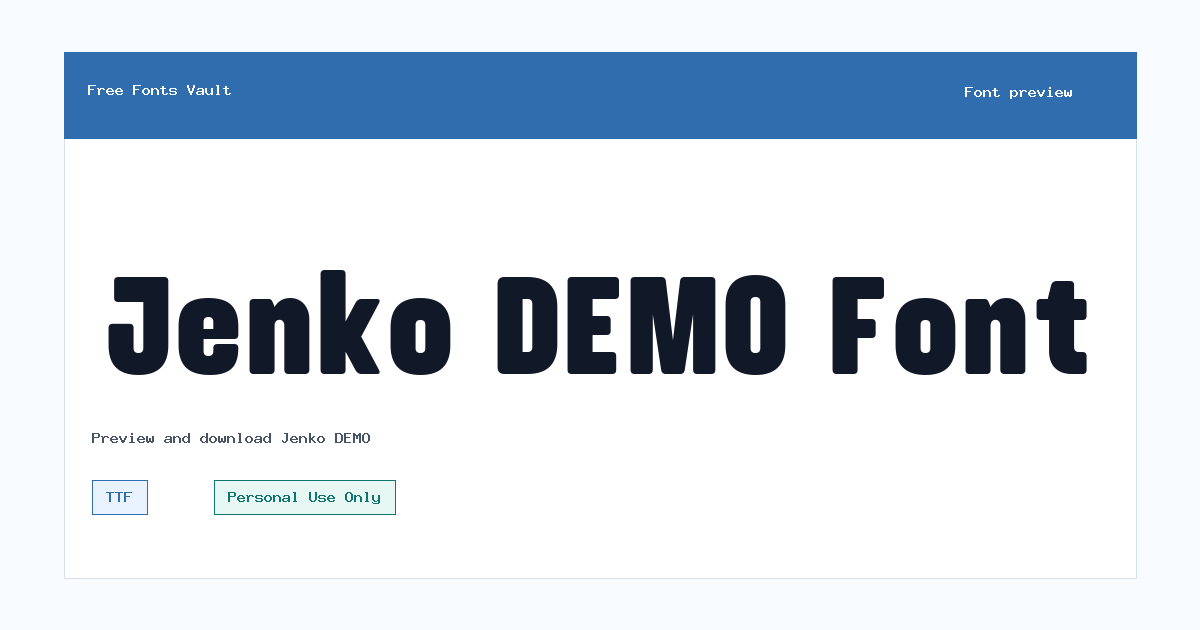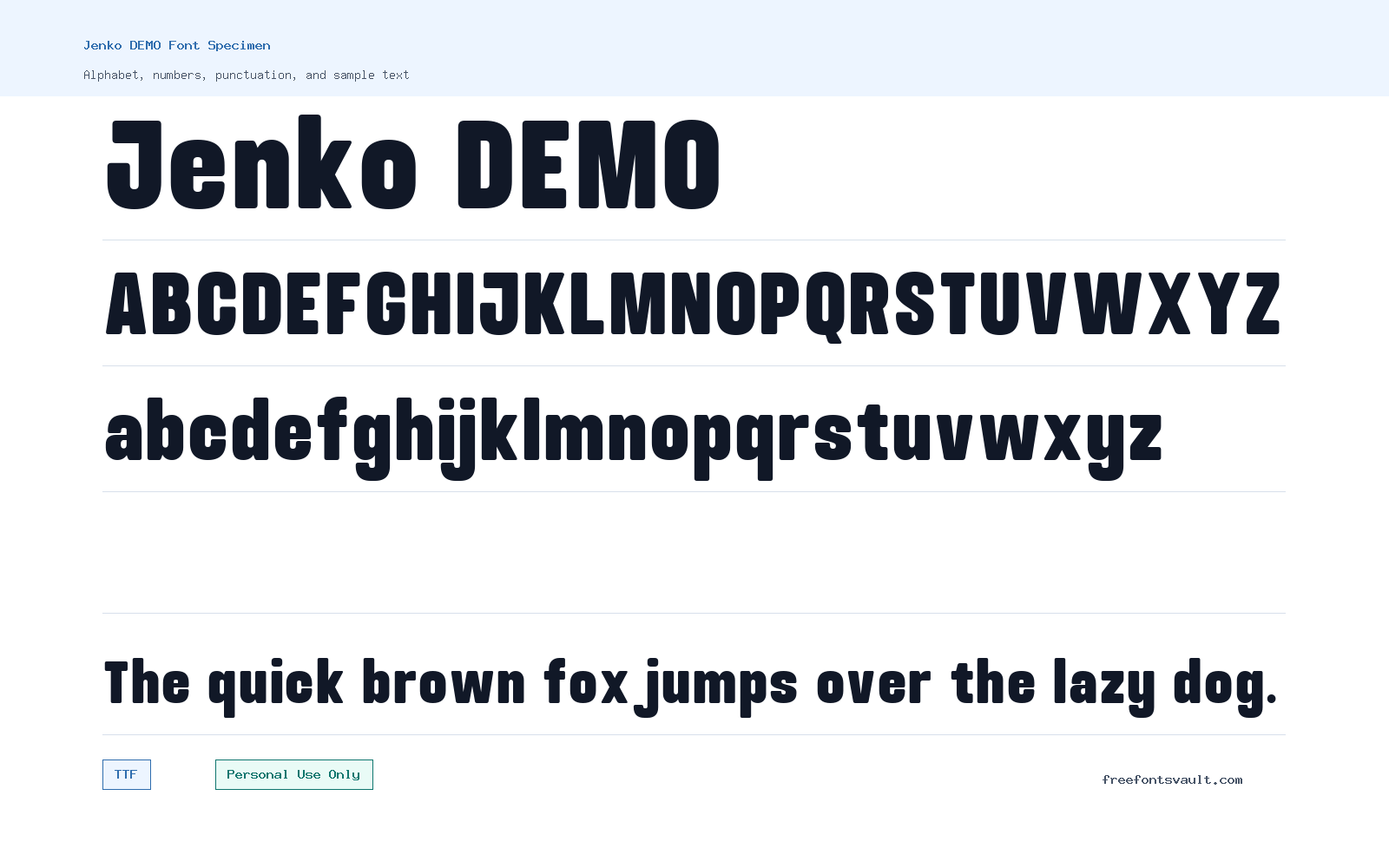
Jenko DEMO
Jenko DEMO font preview showing the family name
Jenko DEMO Font
Jenko DEMO font specimen showing alphabet, numbers, and sample text
Jenko DEMO font.
Jenko DEMO is a sans serif font with a clean regular style, made for visitors who want to test a modern display-friendly typeface before using it in personal design work.
About Jenko DEMO
Jenko DEMO is presented as a regular-weight TTF font from Say Studio. Its sans serif classification makes it useful for clear titles, short labels, display text, and simple brand mockups where you want a direct, uncluttered look. Because only the regular style is listed, it is best treated as a single-style font rather than a full text family. That makes it easier to preview quickly, but it also means you should test spacing, contrast, and hierarchy carefully before using it across a larger layout.
For design work, Jenko DEMO is most useful in short runs of text: logo drafts, poster headlines, social graphics, packaging concepts, web hero mockups, portfolio thumbnails, and typographic experiments. Try it first with a few words, then test it at both large and medium sizes. If the letter shapes feel too strong for body copy, keep it for headings and pair it with a quieter font for paragraphs. A neutral sans serif, a readable humanist sans, or a simple serif can help balance the design without competing with the main title.
If you are using Jenko DEMO for logo exploration, start with black text on a plain background before adding color, texture, or effects. This helps you judge the actual letter rhythm and spacing. For posters and social media layouts, test all-uppercase settings, title case, and short lowercase phrases. Some demo or display fonts look best with careful tracking adjustments, so use the preview to check whether the default spacing works for your exact words.
• Sans serif style suited to short display text, logo drafts, posters, and interface mockups.
• Single regular weight, useful for focused previews but not a complete multi-weight family.
• Personal logo concepts and brand direction tests
• Poster headlines and event-style title layouts
• Social media graphics, quote images, and thumbnail text
• Website hero mockups and landing page concept designs
• Packaging mockups, labels, and presentation boards
• Typography studies where a clean sans serif display style is needed
Is Jenko DEMO good for body text?
It is better to test it as a display font first. Since only one regular style is listed, it may work best for short headings, names, and graphic text rather than long paragraphs.
What should I pair with Jenko DEMO?
Pair it with a simple, readable font for longer text. A neutral sans serif or a clean serif can keep the layout balanced while Jenko DEMO handles the main title.